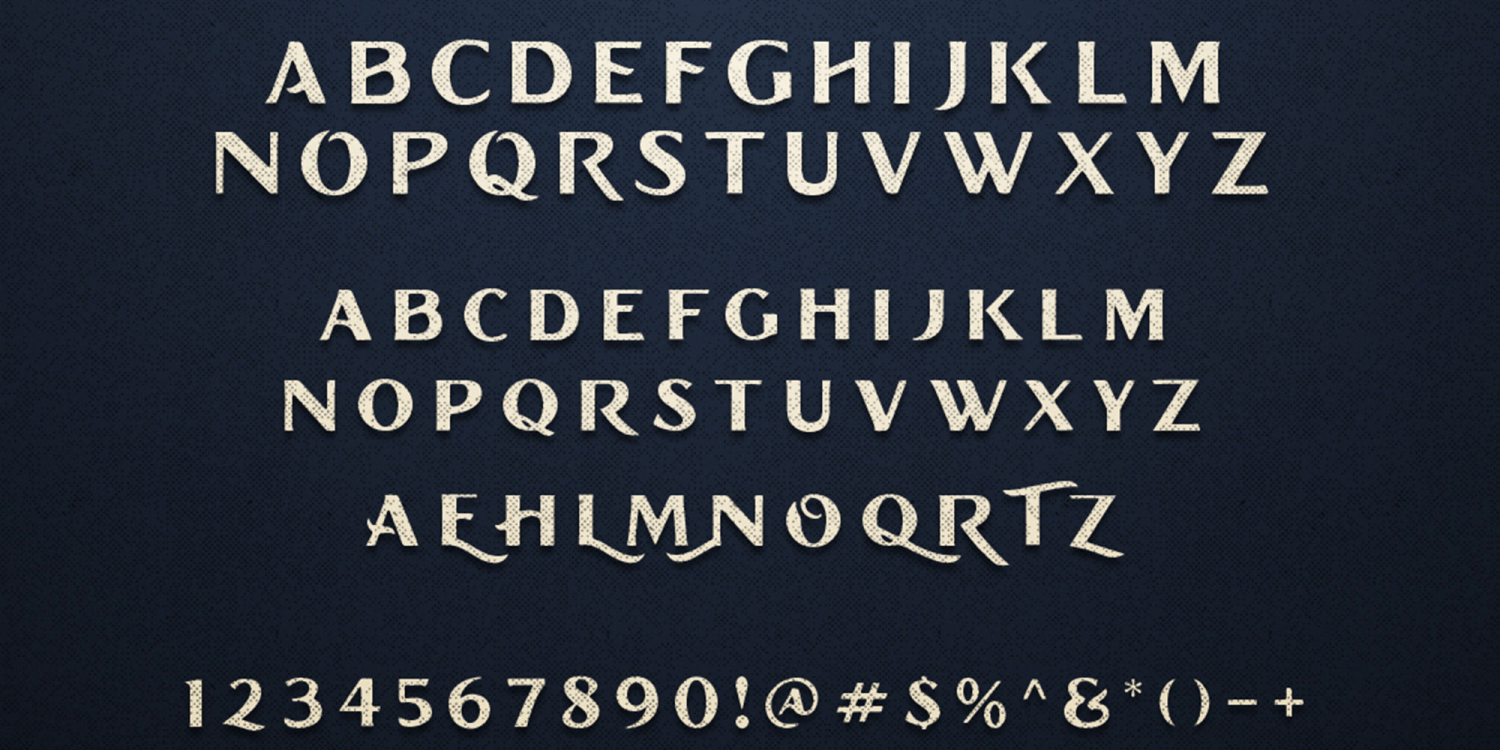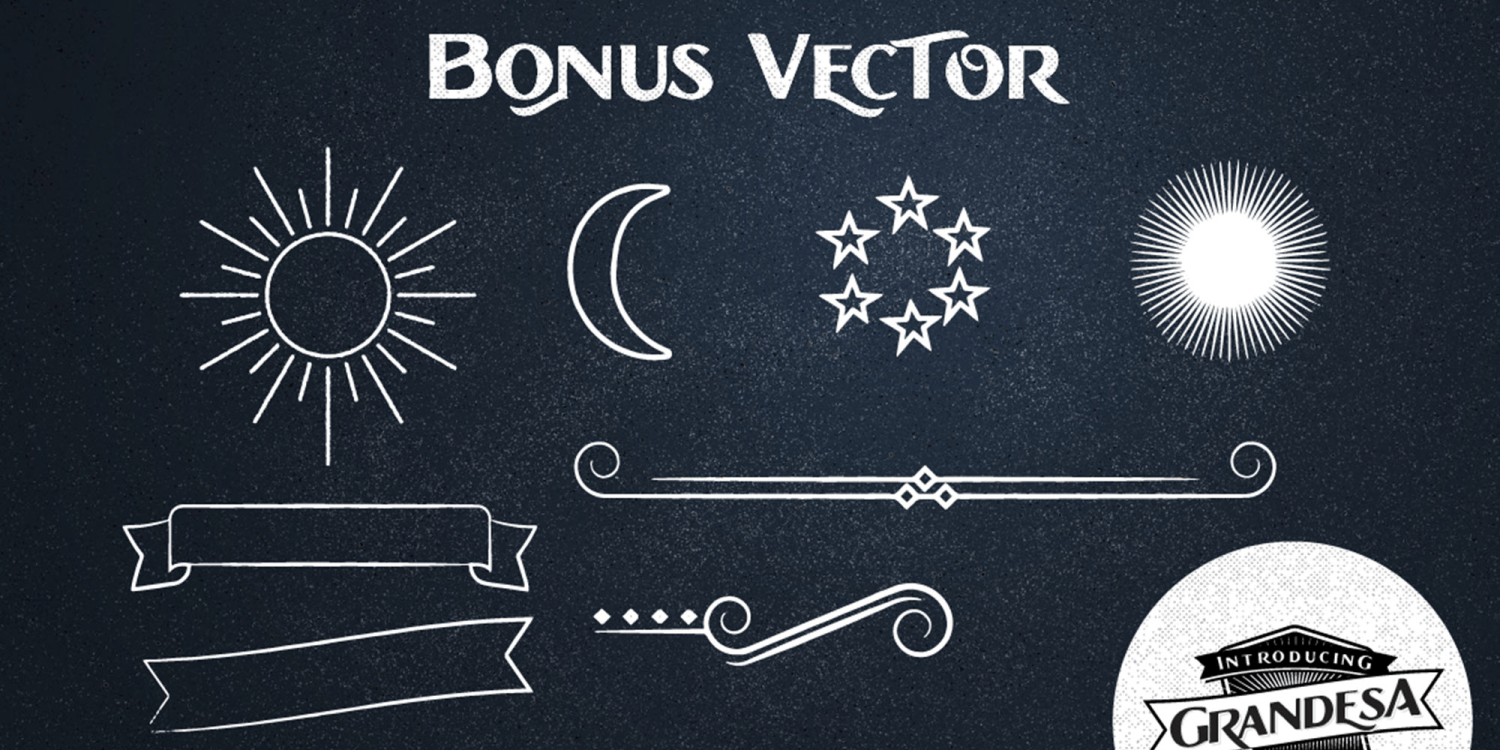
Grandesa
Grandesa is a handmade family with two typefaces (Refined and Handrawn) and a set of ornaments. In OpenType capable apps, turning on Stylistic Alternates and Contextual Alternates allows you to mix and match pairs of letters to fit your design. Grandesa Handrawn has a distressed, vintage look. Grandesa Refined looks elegant and expensive with a touch of vintage. Both are great for t-shirts, logos, labels, posters, etc.